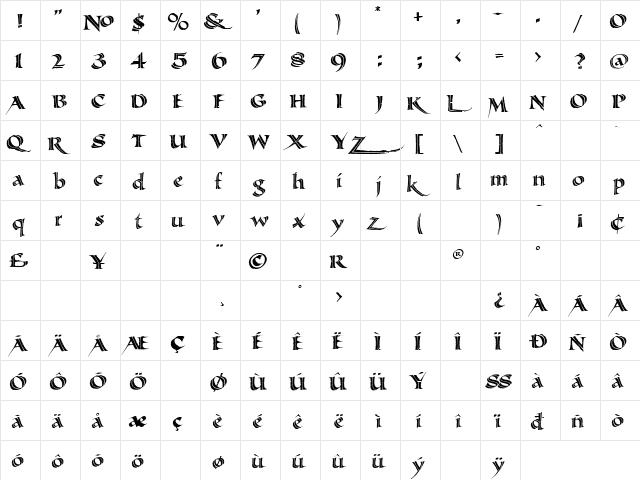
LHF Michelle Distressed Inline Regular
Design Context for LHF Michelle Distressed Inline Typeface
LHF Michelle Distressed Inline embraces imperfection — its rough, textured character adds raw authenticity to designs that want to feel lived-in and unconventional.
A strong fit for alternative music projects, graffiti-adjacent design, and anything that deliberately resists polish.
Pro Tip: Use LHF Michelle Distressed Inline at larger sizes where the texture and irregularity of each letterform can be clearly seen — it loses its character at small sizes.